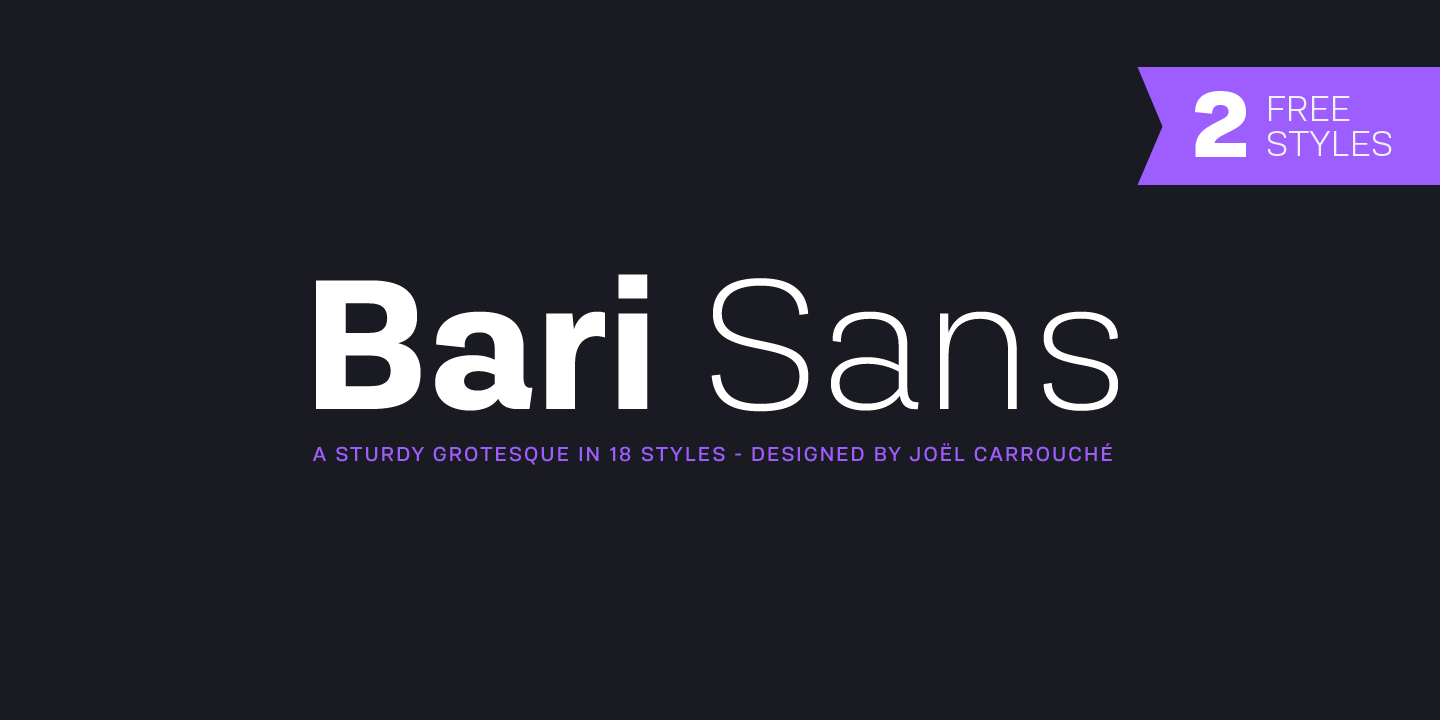
Bari Sans Font is perfect for Italian restaurants, Mediterranean travel agencies, Puglia tourism branding, Southern Italian cultural centers, olive oil packaging, authentic Italian cuisine establishments, coastal resort marketing, Italian language schools, regional food festivals, and genuine Southern Italian heritage designs.
Bari Sans Font is exciting because it captures the warm hospitality and coastal charm of Southern Italy through inviting letterforms that evoke the sun-drenched beauty of Puglia and the authentic simplicity of Mediterranean lifestyle, making it perfect for brands celebrating Italian coastal culture and regional authenticity.
The Bari Sans Font family includes regular and bold weights with Mediterranean-inspired alternates, coastal ornaments, and Italian regional decorative elements, providing designers with welcoming tools for creating typography that flows with authentic Southern Italian warmth and coastal sophistication.
When your project needs Italian coastal authenticity and Mediterranean charm, Bari Sans Font Free Download provides the perfect typographic journey to Southern Italy's cultural heart. This welcoming sans-serif typeface combines regional Italian heritage with contemporary functionality, ensuring your brands resonate with audiences seeking genuine Mediterranean experiences and authentic Italian coastal lifestyle. The inviting letterforms and coastal styling make this font an essential choice for Italian tourism, regional restaurants, and any application where Southern Italian culture, Mediterranean warmth, and coastal authenticity are crucial for establishing credibility and connecting with communities that appreciate the timeless beauty of Italian coastal living and the generous hospitality that defines the warm spirit of Puglia and the enduring charm of authentic Southern Italian culture.